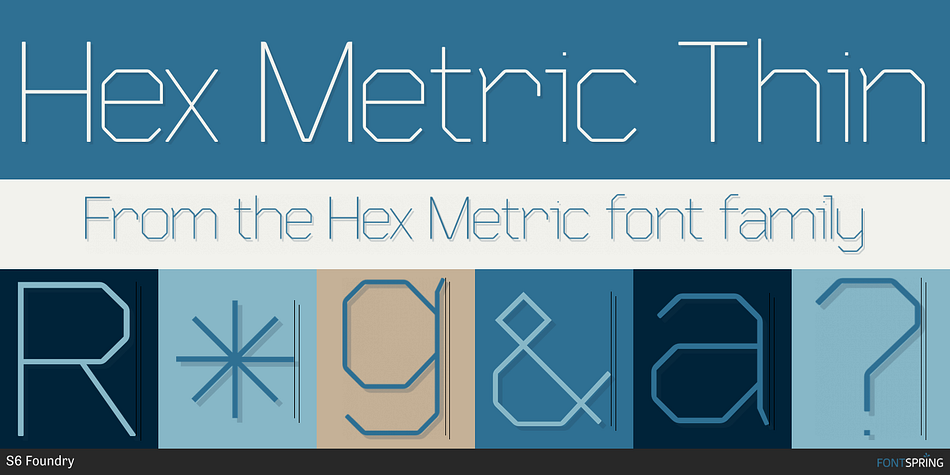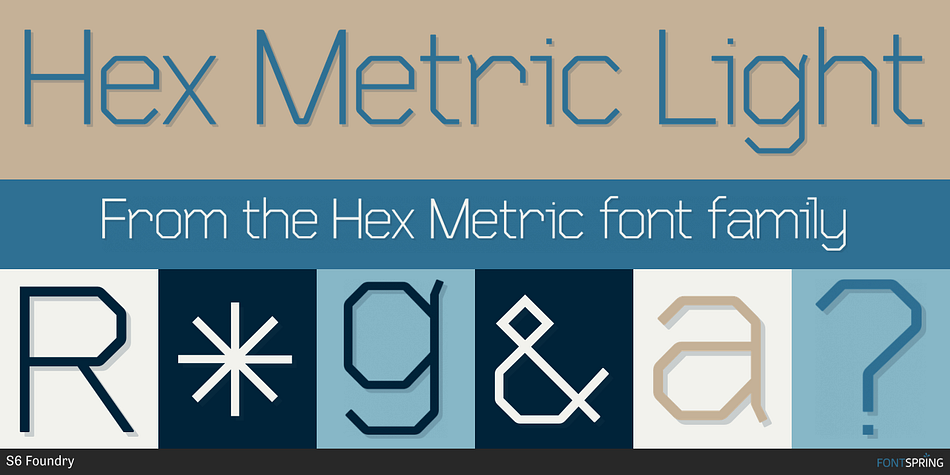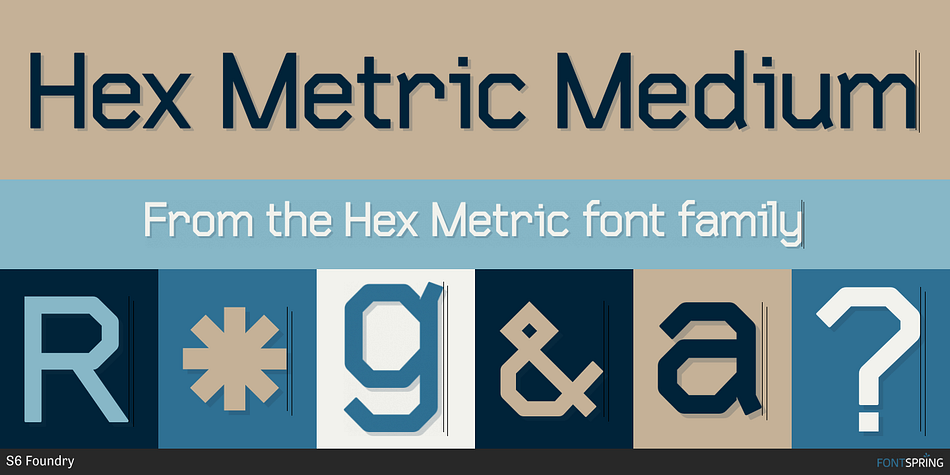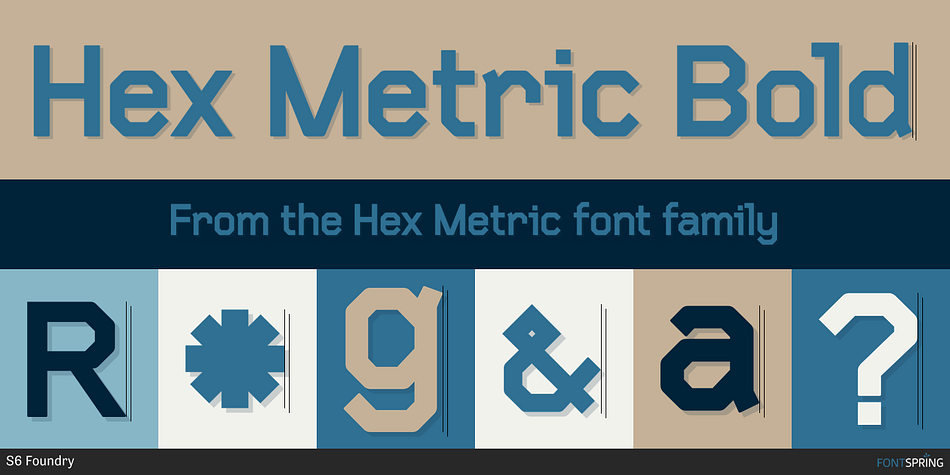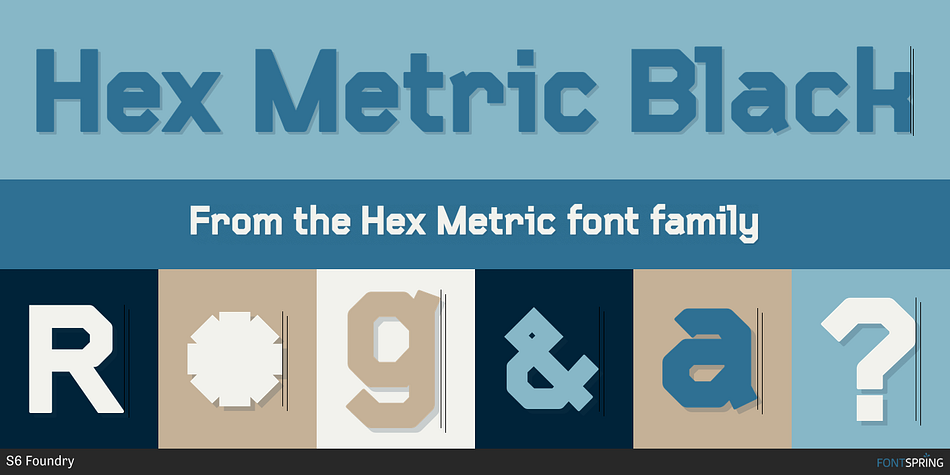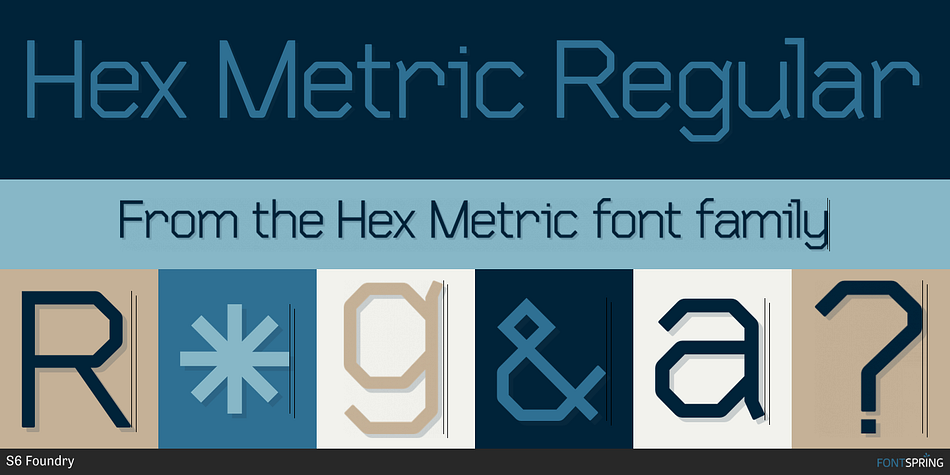
Designed by Paul Robb, Hex Metric is a display sans font family. This typeface has six styles and was published by S6 Foundry.
Hex MetricV.01 is a stylistic mechanical font developed within a set grid that creates harmony through architectural forms, for use at both text and display sizes. Perfectly suited for headlines, large-format prints, brand identities, social media, advertising, editorial design, posters, magazines, logos, headings, body copy, digital and more.